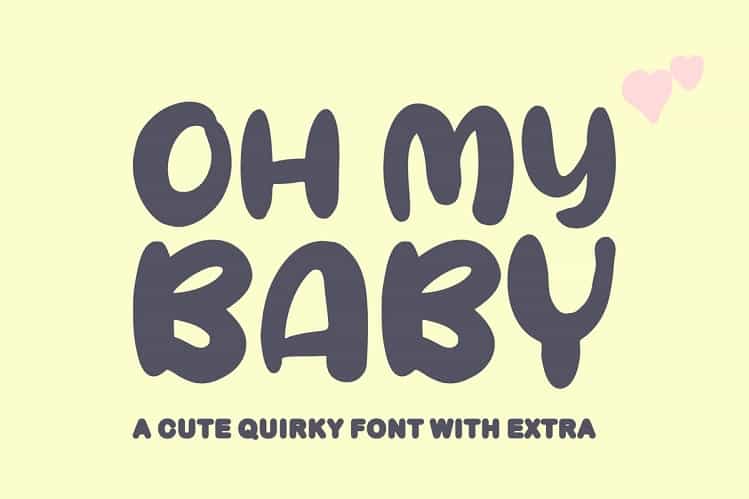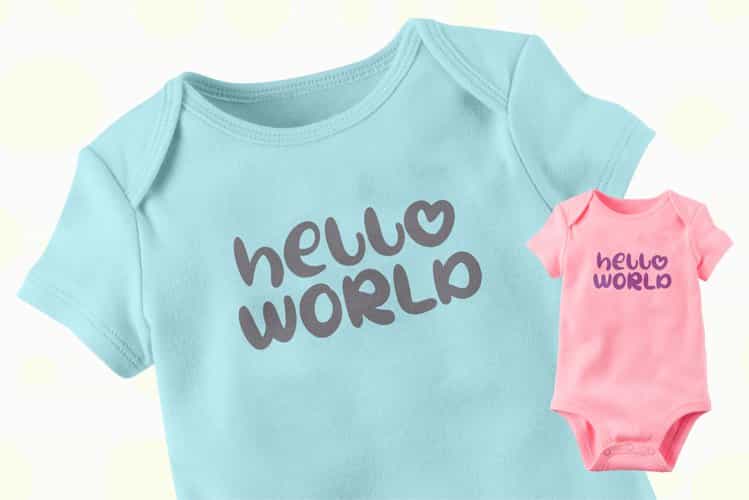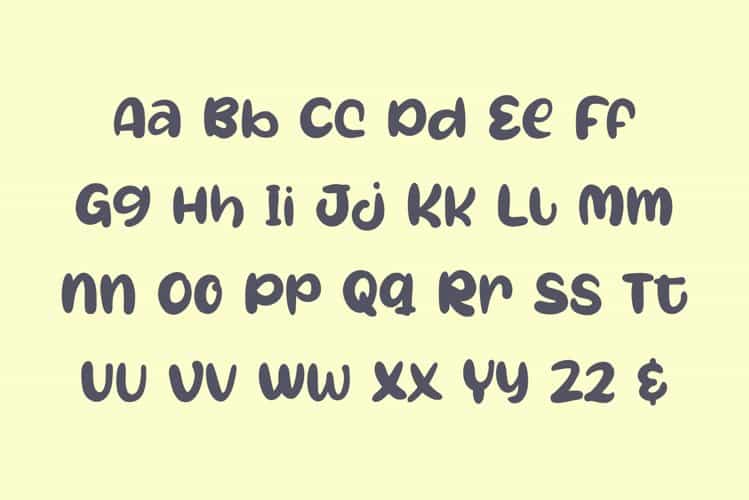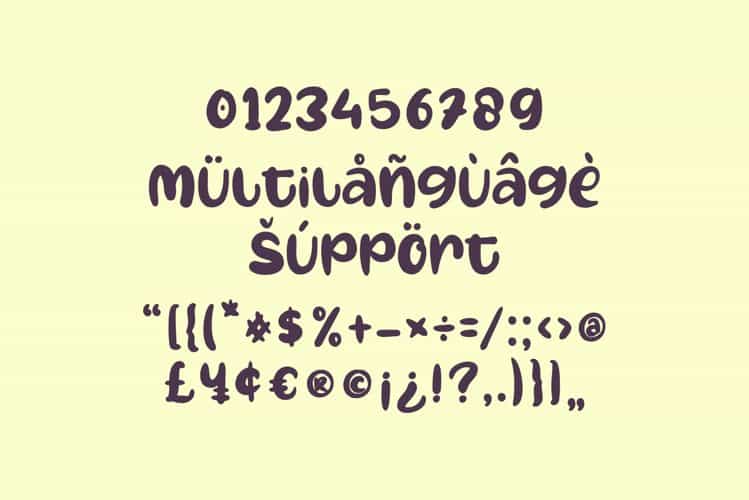
Discover Oh My Baby Cartoon Font, part of the Display Cartoon collection—a versatile and unique font perfect for adding a personal touch to your projects. Download it for free and enjoy crafting designs with style, from invitations to social media posts. This font is available exclusively for personal use, giving you the freedom to create without limits. Unlock your creativity with Oh My Baby Cartoon Font today!
Oh My Baby embodies fun as well as a playful and authentic font. This gorgeous display font can transform any idea that is creative into a truly distinctive. My Baby is a cute funny font that includes Bonus Dingbats